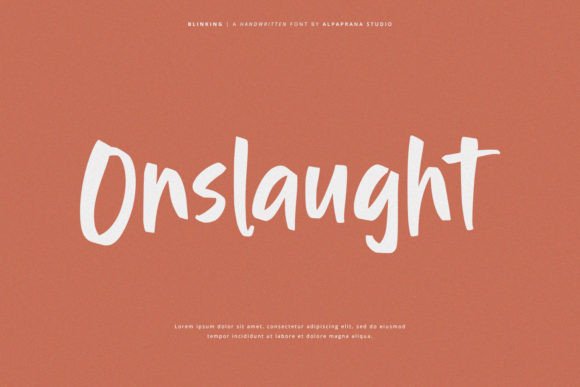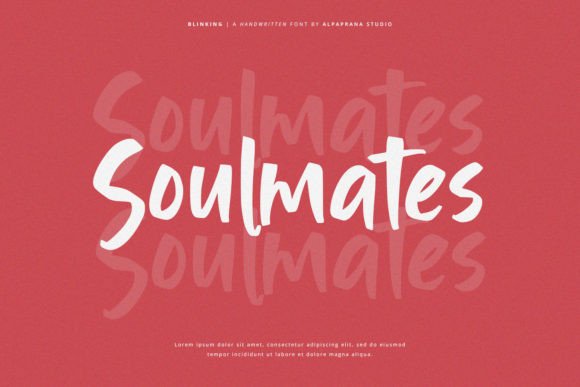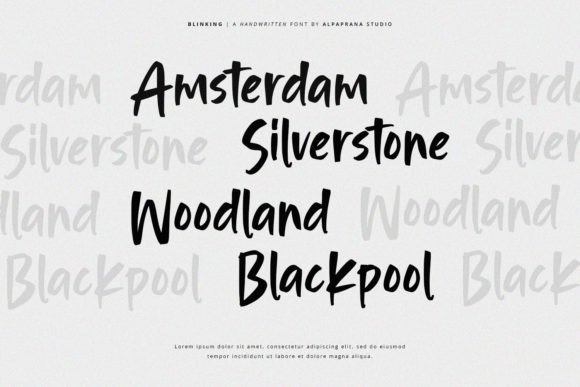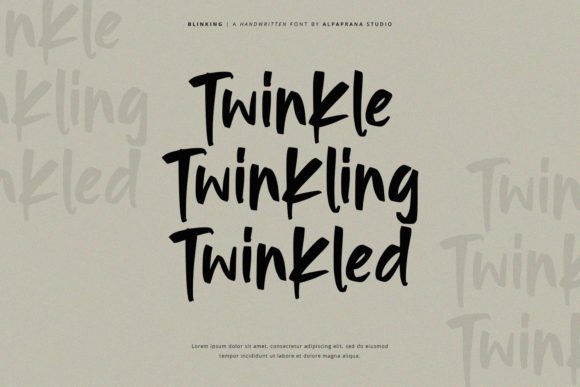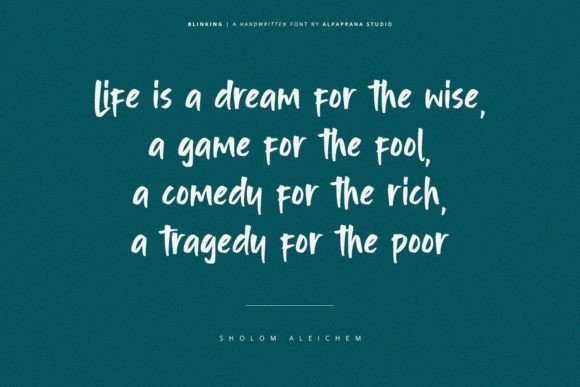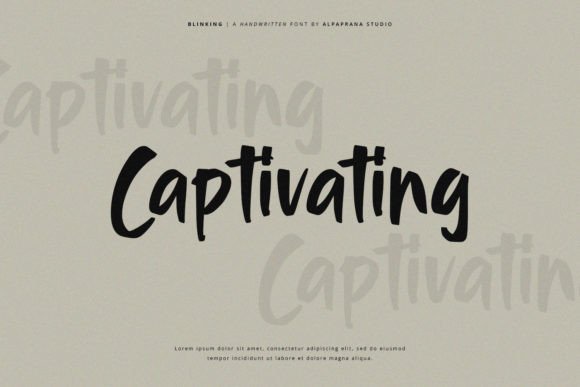
Introducing Blinking Font: The Perfect Handwritten Display Font for Modern Designs
Are you tired of using the same old fonts for your design projects? Look no further! Blinking Font is a handwritten display font that brings a natural and modern feel to your creations. With its unique and stylish aesthetic, Blinking Font is perfect for a wide range of design applications, from branding and logos to packaging and advertising.
What is Blinking Font?
Blinking Font is a carefully crafted handwritten display font that exudes a sense of modernity and sophistication. Its natural feel makes it perfect for designs that require a personal touch, while its modern aesthetic ensures that your projects look fresh and contemporary. Whether you’re a designer, craftsperson, or DIY enthusiast, Blinking Font is an excellent choice for adding a touch of elegance to your work.
Key Features of Blinking Font
- Natural and Modern Feel: Blinking Font combines the warmth of handwritten script with the sleekness of modern typography, making it perfect for designs that require a balance of classic and contemporary styles.
- Versatile: Blinking Font is suitable for a wide range of design projects, including branding, logos, lettering, logotypes, clothing, posters, magazines, packaging, shopping bags, T-shirts, book covers, photography, special events, and more.
- Handwritten: Blinking Font is a handwritten font, which means that each letter is carefully crafted to provide a unique and personal touch to your designs.
- Display Font: Blinking Font is designed to make a statement, making it perfect for headlines, titles, and other display text.
Use Cases for Blinking Font
Blinking Font is an incredibly versatile font that can be used in a variety of design projects. Here are some examples of how you can use Blinking Font:
- Branding and Logos: Create a unique and memorable brand identity with Blinking Font. Its modern and stylish aesthetic makes it perfect for logos, business cards, and letterheads.
- Packaging and Advertising: Add a touch of elegance to your packaging and advertising materials with Blinking Font. Its natural and modern feel makes it perfect for product labels, flyers, and brochures.
- Clothing and Accessories: Use Blinking Font to create stylish and eye-catching designs for clothing, T-shirts, tote bags, and other accessories.
- Book Covers and Magazines: Add a touch of sophistication to your book covers and magazine designs with Blinking Font. Its elegant aesthetic makes it perfect for titles, headings, and pull-quotes.
- Photography and Special Events: Use Blinking Font to add a personal touch to your photography and special event designs, such as wedding invitations, photo captions, and event posters.
Why Choose Blinking Font?
With so many fonts available, why choose Blinking Font? Here are just a few reasons why Blinking Font stands out from the crowd:
- Unique Aesthetic: Blinking Font has a unique and stylish aesthetic that sets it apart from other fonts.
- High-Quality Design: Blinking Font is carefully crafted to provide a high-quality design that looks great in any size or resolution.
- Versatile: Blinking Font is suitable for a wide range of design projects, making it a great addition to any design library.
Blinking Font is a versatile and stylish handwritten display font that brings a natural and modern feel to your designs. With its unique aesthetic, high-quality design, and ease of use, Blinking Font is perfect for designers, craftspersons, and DIY enthusiasts looking to add a touch of elegance to their projects. Whether you’re working on branding, packaging, advertising, or any other design project, Blinking Font is an excellent choice.